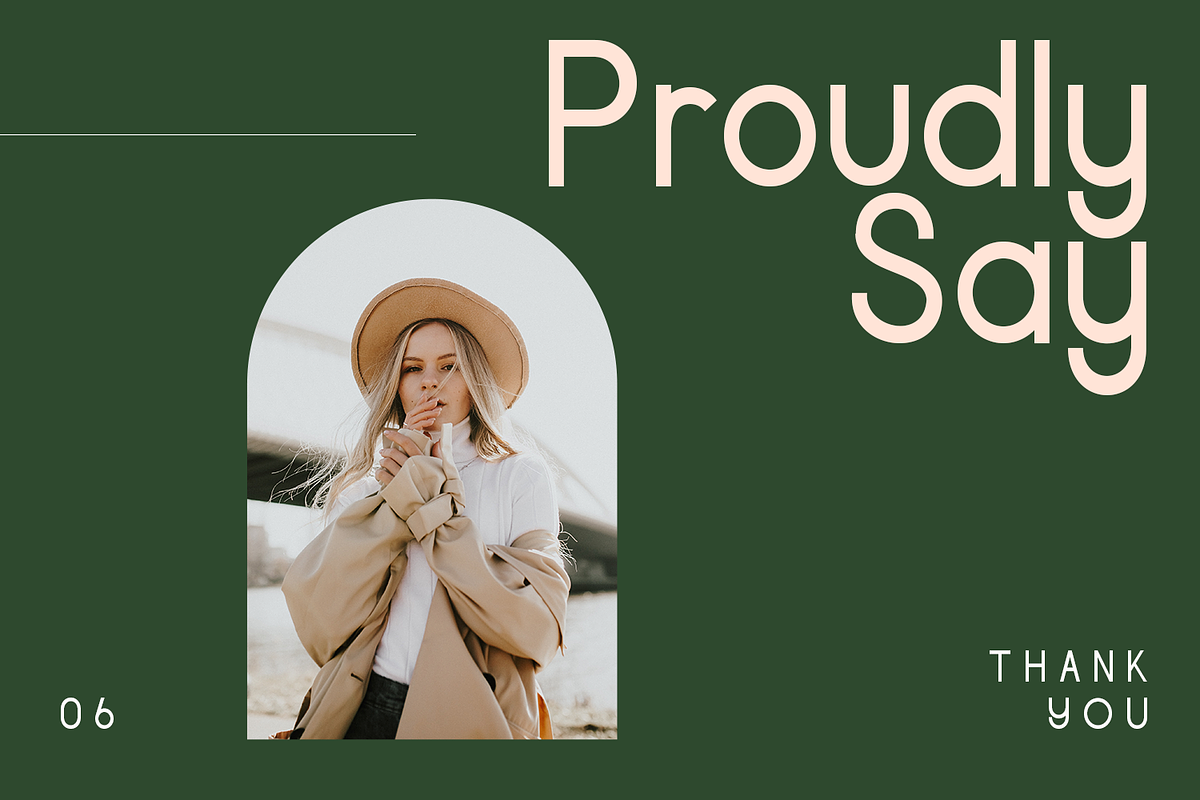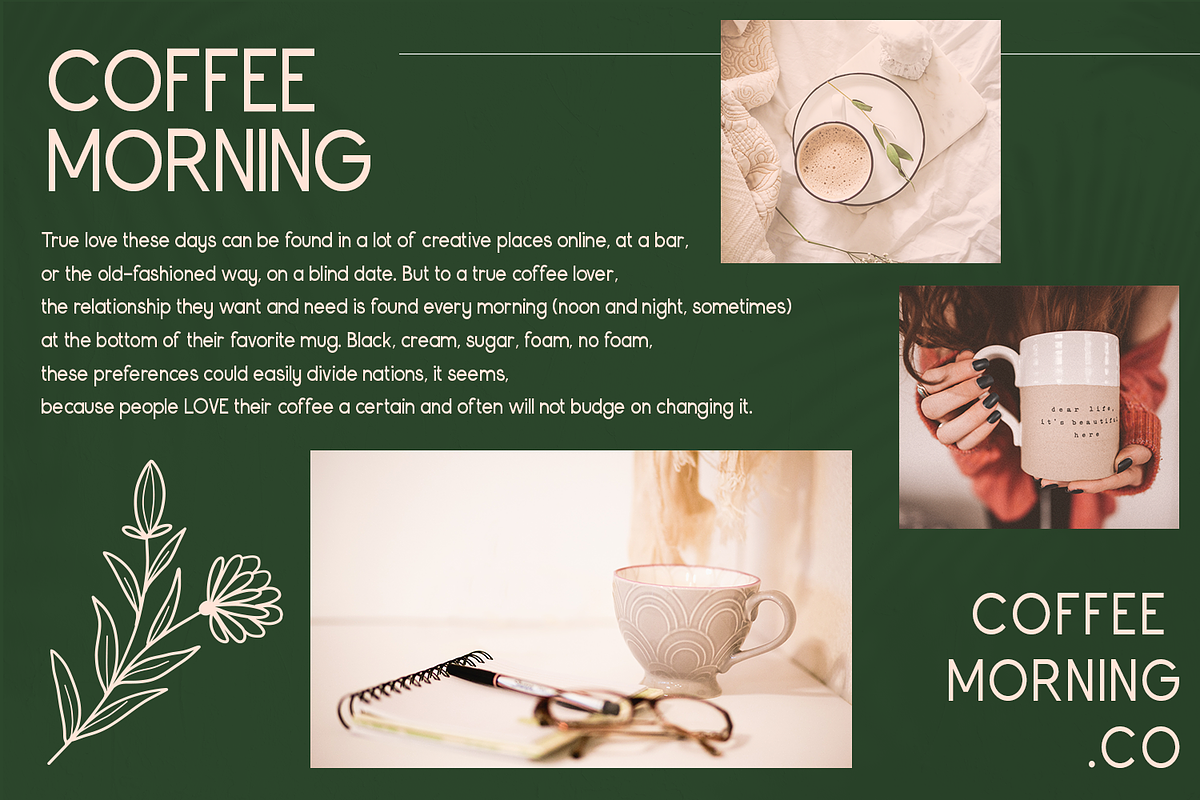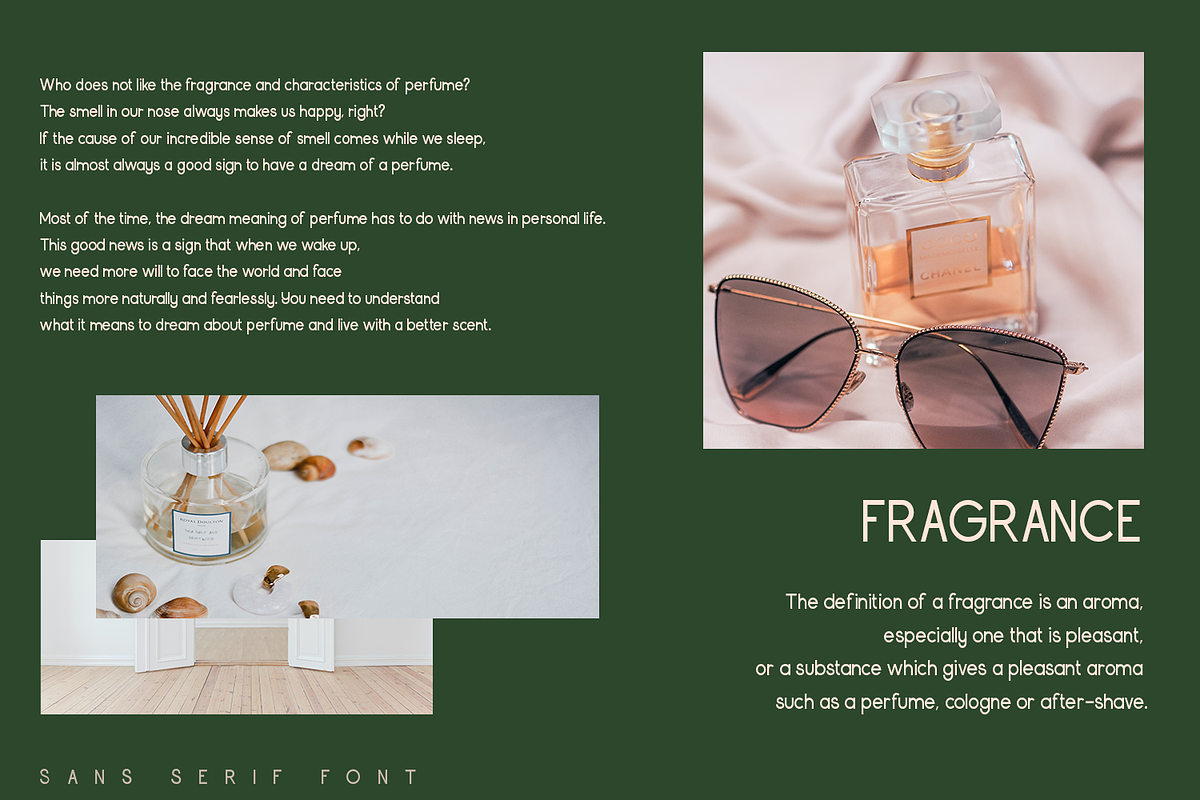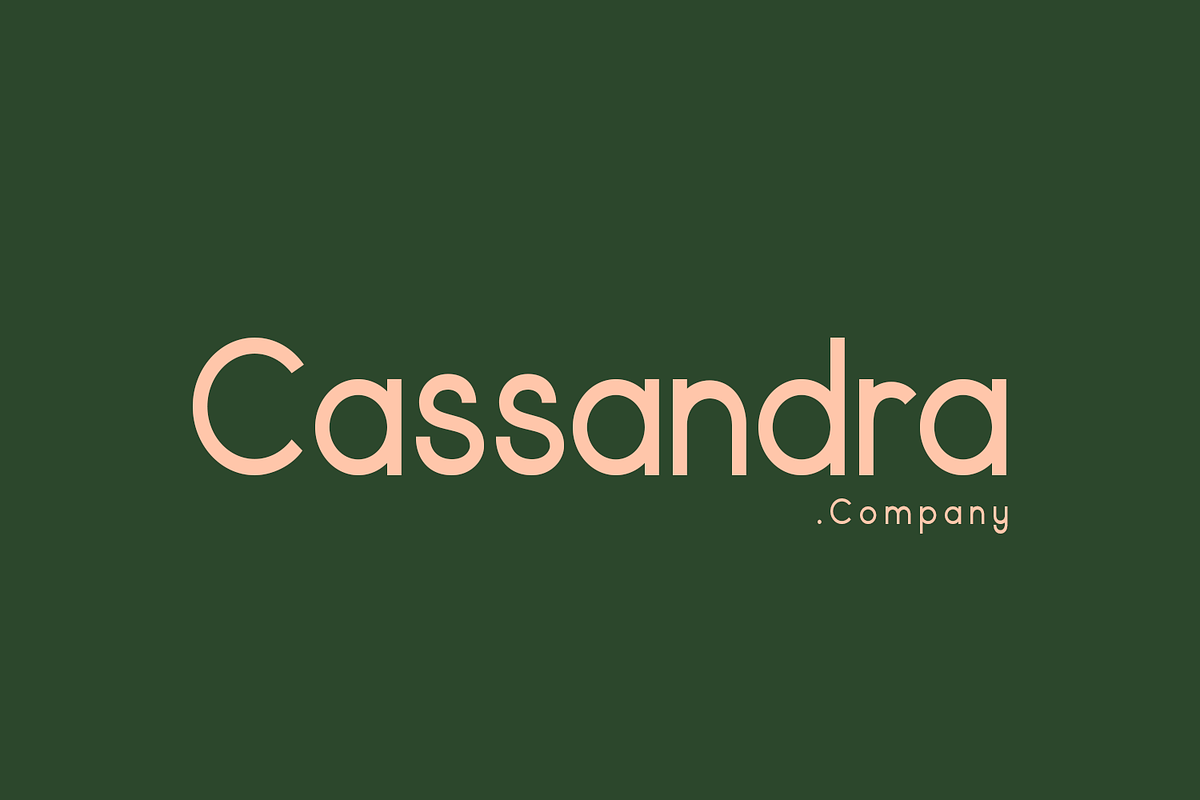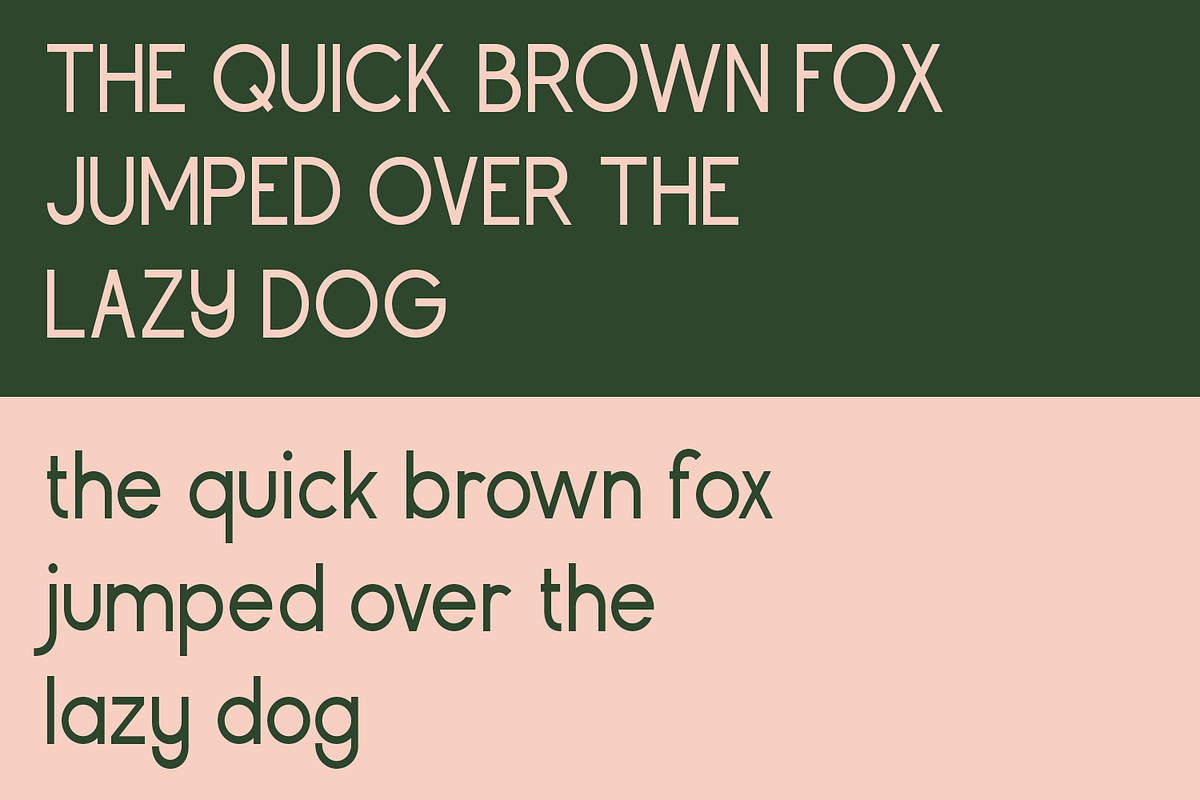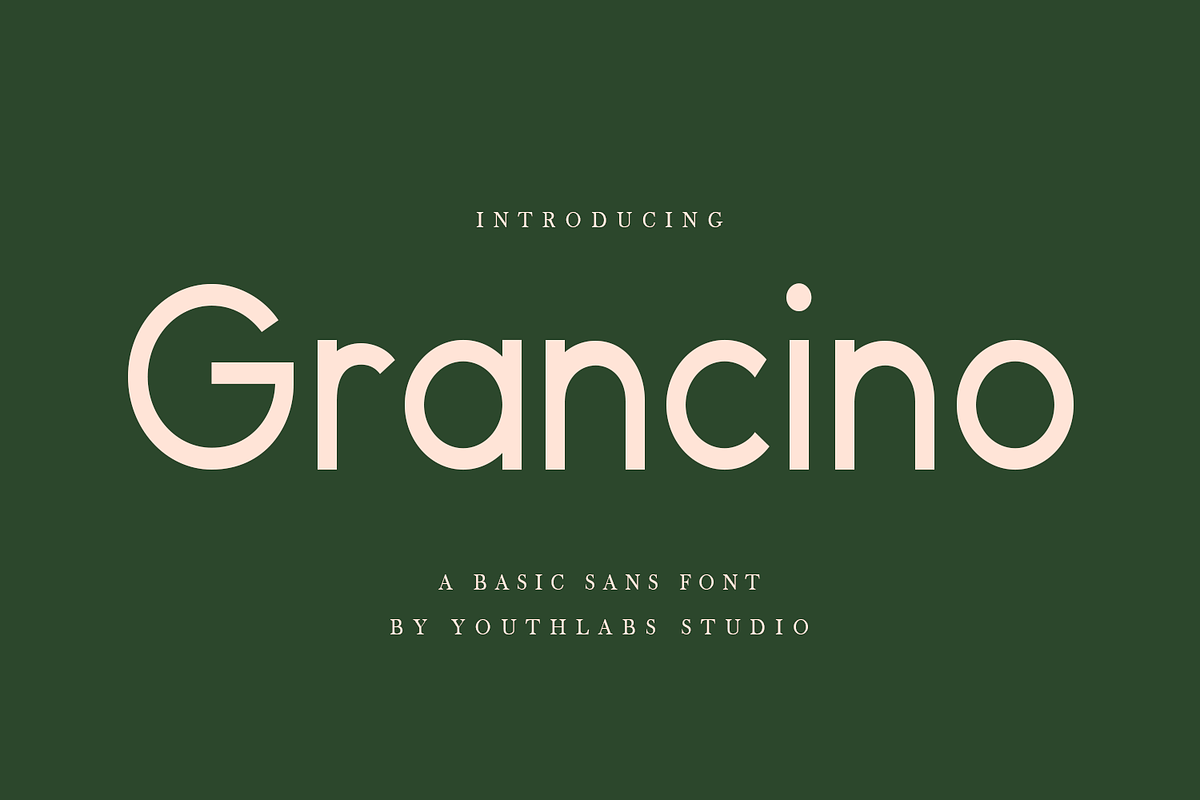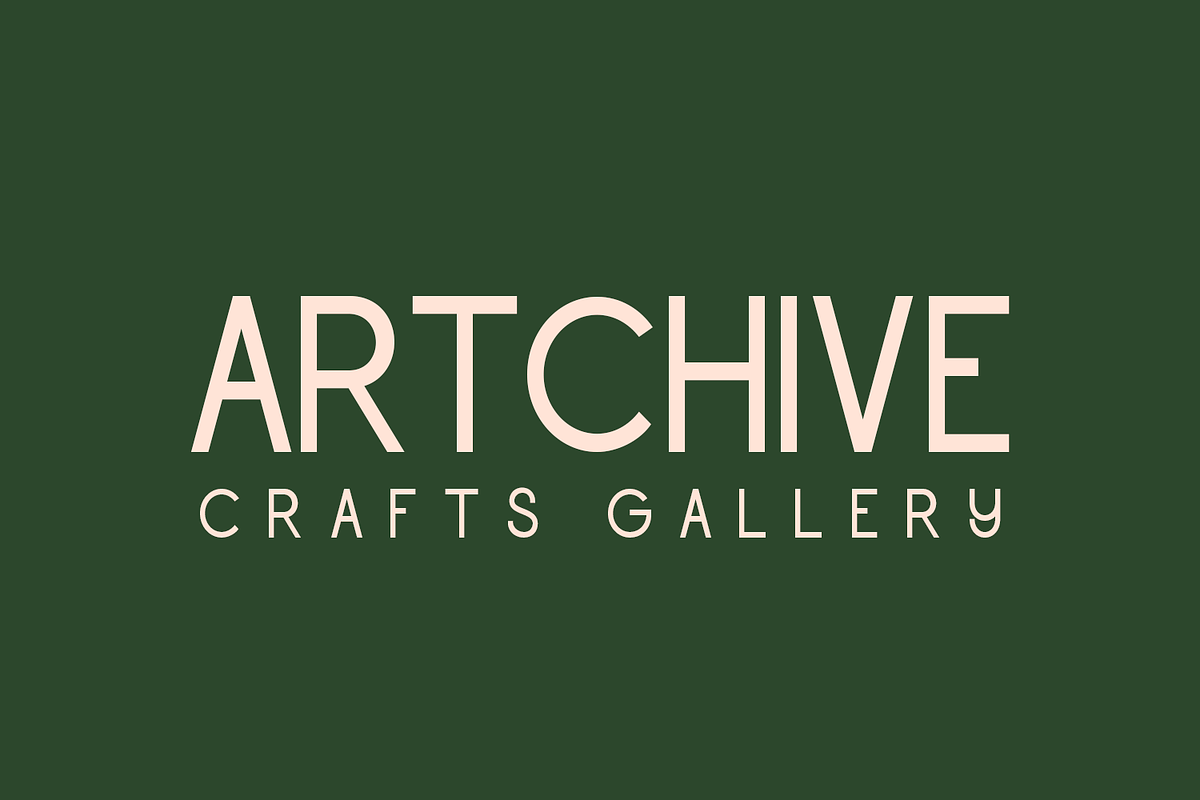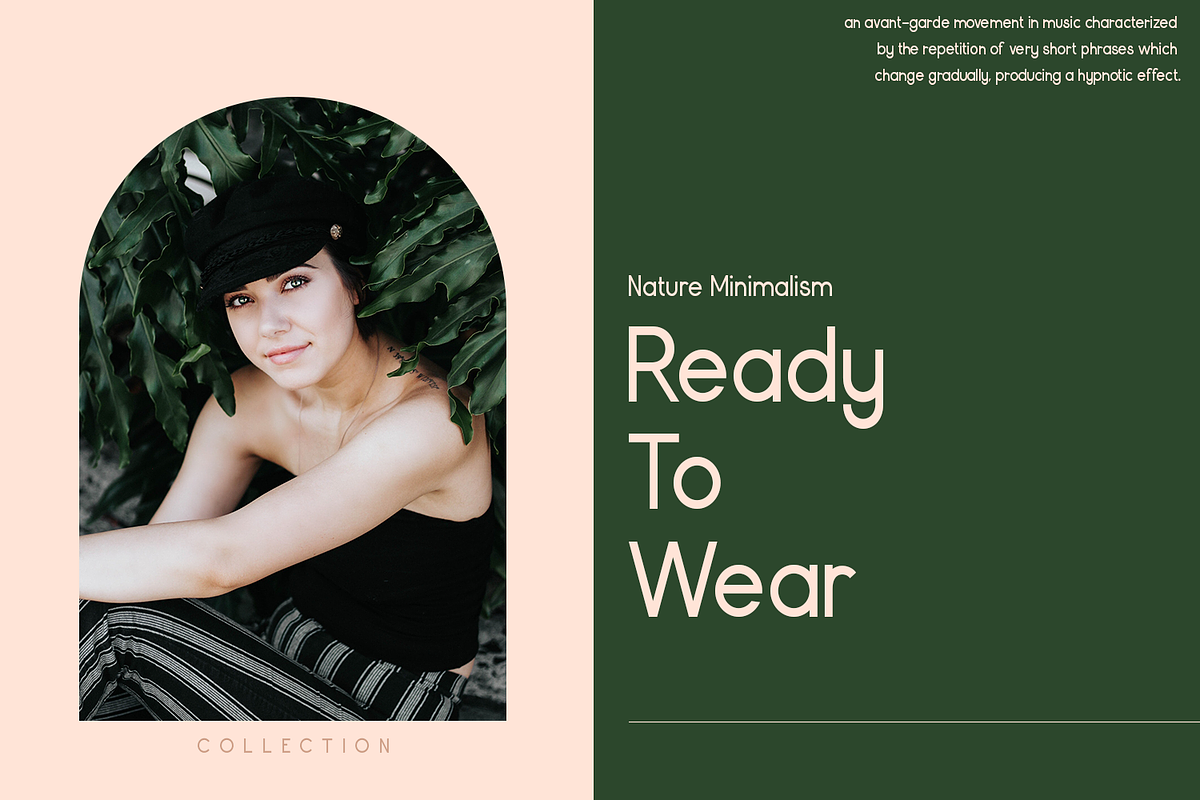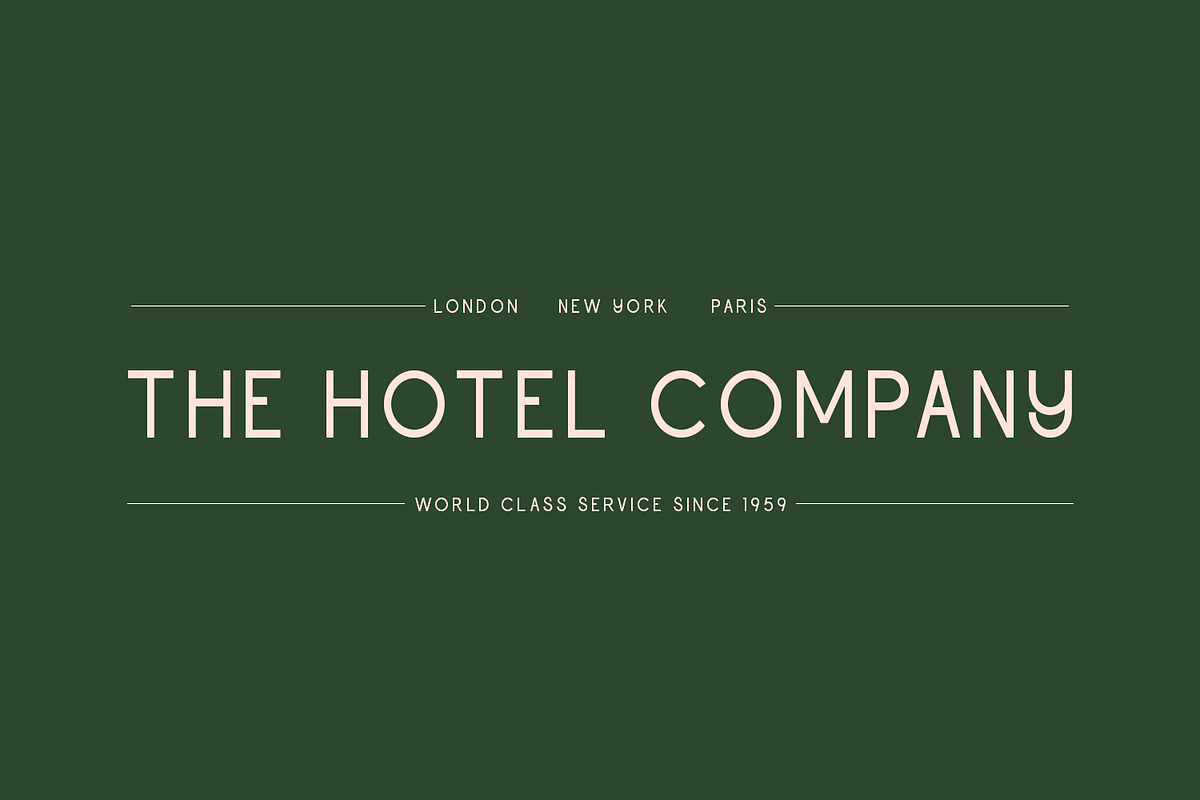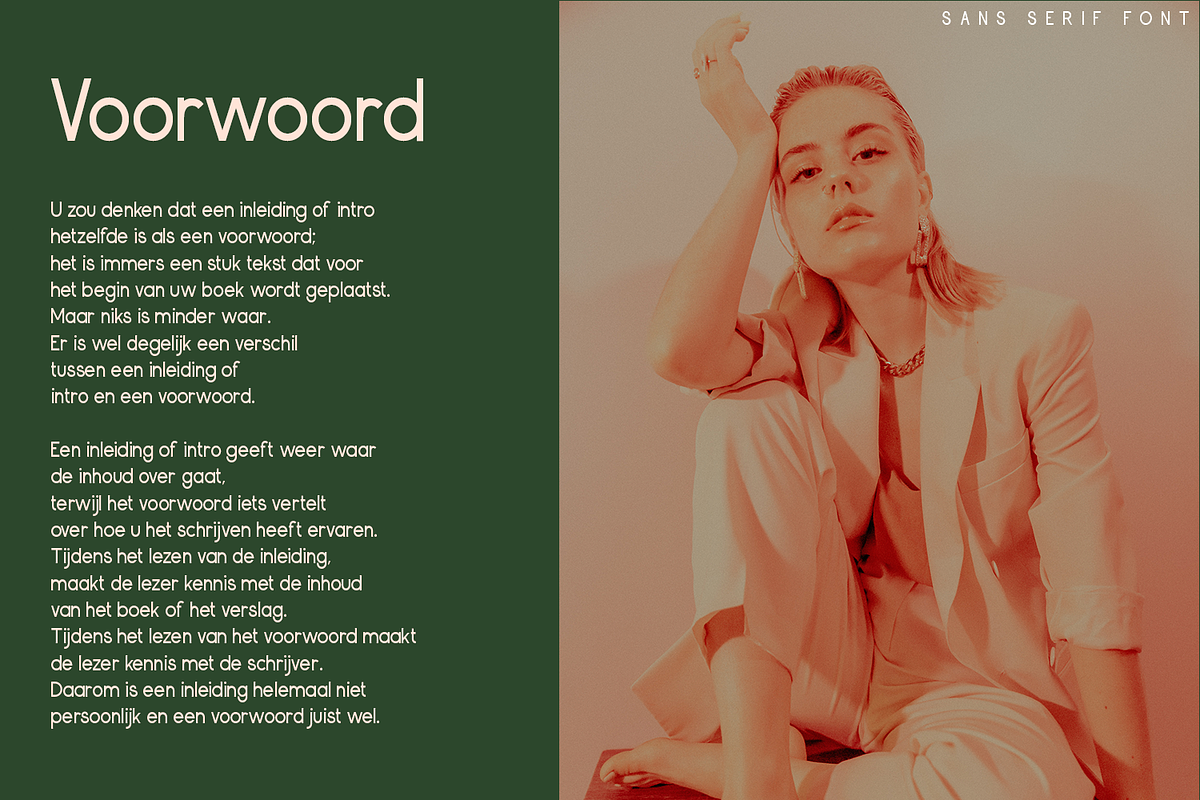
Grancino - Modern Sans Serif
Grancino font is a basic sans serif font that shows a simple and elegant side and is very suitable for making product logos and displays in magazines, lookbooks, catalogs and others.